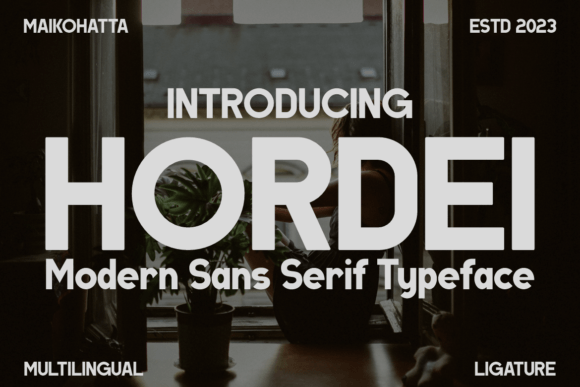
The Moment of Creative Genius
Have you ever stared at a blank canvas, waiting for that spark of inspiration to strike? For designers, that moment of creative genius is what drives us to push the boundaries of what’s possible. And today, we’re excited to introduce a tool that’s about to make that creative process even more thrilling – Hordei Font.
Hordei Font is a bold and authentic display font designed to elevate your branding projects, from logos to template designs, and even esports graphics. With its versatility and unique character, Hordei Font is the perfect companion for any designer looking to add a touch of modern sophistication to their work. Whether you’re working on a personal project or collaborating with clients, Hordei Font is a valuable asset that’s sure to impress.
Hordei Font Key Features
- Font Family: Hordei Font is a modern sans-serif font family designed for digital use, including digital signage, mobile apps, and web applications.
- Size: Hordei Font family includes 6 weights, ranging from Light to Black, each with its own unique characteristics and usage.
- Resolution: Optimized for high-resolution displays, including 4K and Retina screens, with clear and legible text at any zoom level.
- Unique Characteristics: Hordei Font features a distinctive geometric shape with clean lines, rounded edges, and a high x-height, making it highly readable and suitable for body text and headings.
- Language Support: Hordei Font supports a wide range of languages, including Latin, Cyrillic, Greek, and many others, with comprehensive Unicode coverage.
Hordei Font Review
Overall, I think Hordei Font has some great qualities, but it also has its limitations.
- ✨ Unique design: Hordei Font has a distinctive look that sets it apart from more common fonts. The combination of modern and traditional elements is quite interesting.
- ✨ Good legibility: The font is easy to read, even at smaller sizes, which is a must for any font.
- ✨ Large character set: Hordei Font includes a wide range of characters, including Cyrillic and Greek alphabets, which is great for international projects.
- ⚠️ Limited font weights: Hordei Font only comes in a few weights, which might limit its use in certain situations.
- ⚠️ No italic styles: The font doesn’t include italic styles, which can be a drawback for certain design applications.
- ⚠️ Some characters look a bit rough: While the font is generally well-designed, some characters, like the lowercase ‘a’ and the uppercase ‘B’, look a bit rough and could be improved.
Overall, I think Hordei Font is a solid choice for projects that require a unique, modern look. However, its limitations might make it less suitable for certain applications, like publishing or design where precise typography is crucial.
Hordei Font Practical Application Guide
When using Hordei Font in Adobe Creative Cloud apps, take advantage of the font’s bold and modern look by pairing it with clean and minimalist designs.
In PowerPoint or Word, you can use Hordei Font to add a touch of modernity to your presentations or documents. To get the most out of the font, use it sparingly to highlight important information or to create a sense of hierarchy in your content.
When using Hordei Font in Microsoft Office apps, be mindful of font size and readability, as the font can be quite bold and may overwhelm smaller text.
Hordei Font is well-suited for modern and creative designs, such as:
– Headings and titles
– Digital signage and graphics
– Infographics and data visualizations
Alternatives to Hordei Font for Designers
Playfair Display is a luxurious, high-end font perfect for making a statement in branding, advertising, and editorial design. It features elegant connections between letters and a touch of sophistication.
Compared to Hordei Font, Playfair Display has a more refined and classical feel, making it ideal for projects that require a sense of elegance and sophistication.